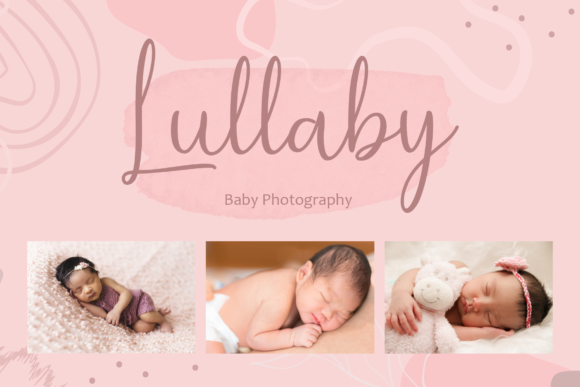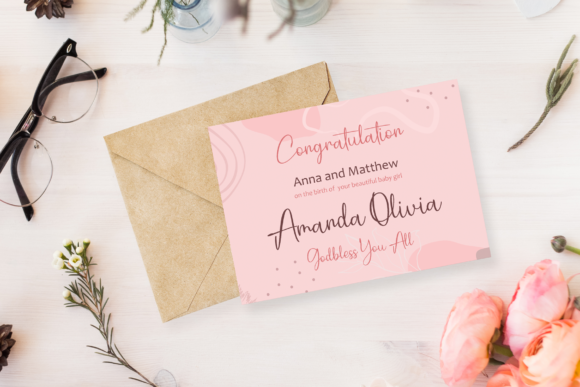
Baby Dandelia Font
db-ku.com - Script & Handwritten -- Baby Dandelia is a whimsical script font with a relaxed theme, featuring a lovely style. No matter the topic, this font will be an incredibly asset to your fonts’ library, as it has the potential to elevate any creation.